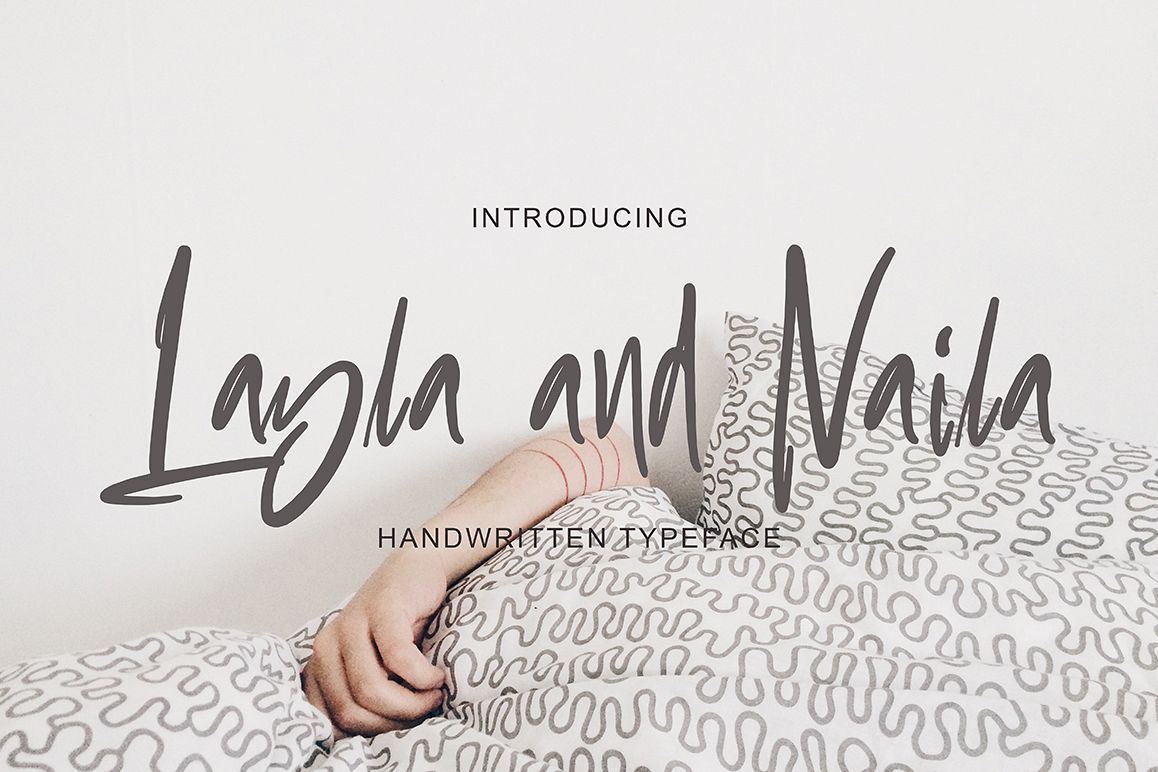
Layla and Naila
Layla and Naila is modern display font with modern style, this font will perfect for many different project ex: quotes, logo, blog header, poster, wedding, banding, fashion, apparel, letter, invitation, stationery, etc.